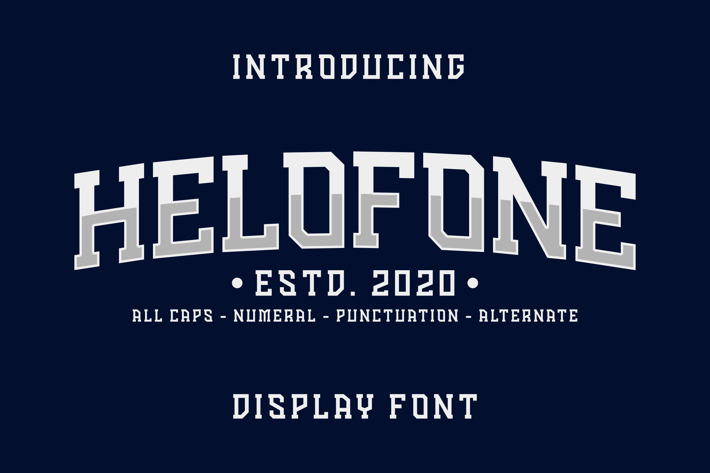
Helofone Sport Font
Helofone is a font designed for sports and gaming segments such as logo design, ticket design, brochure design, jersey and others.
All Uppercase